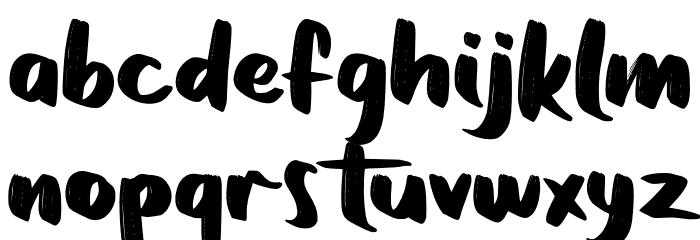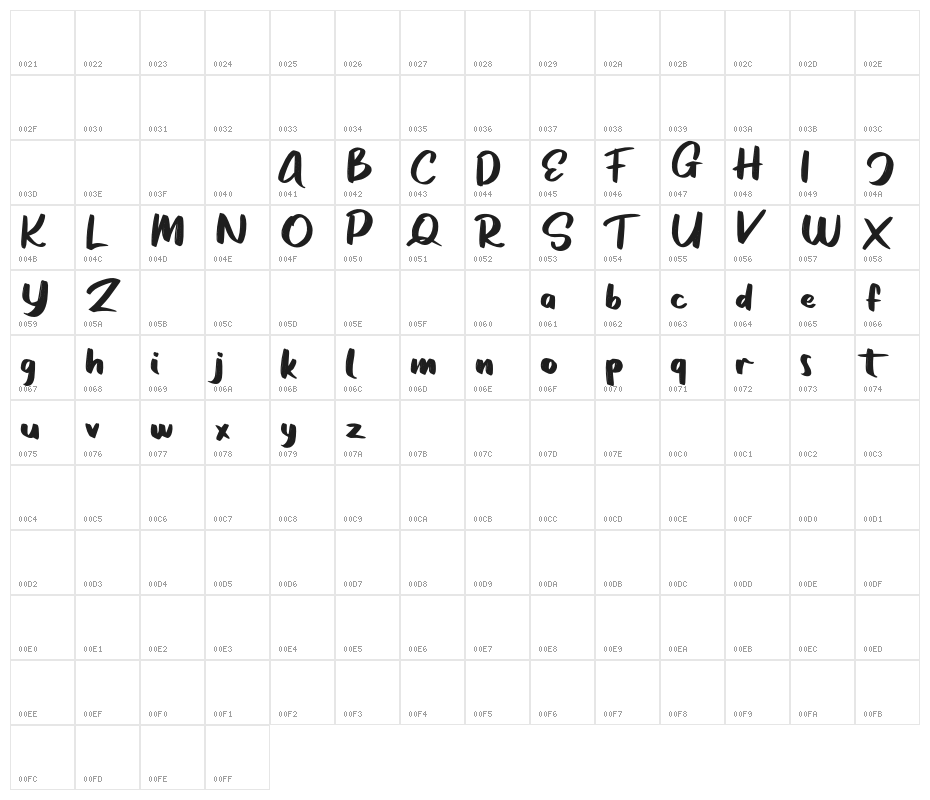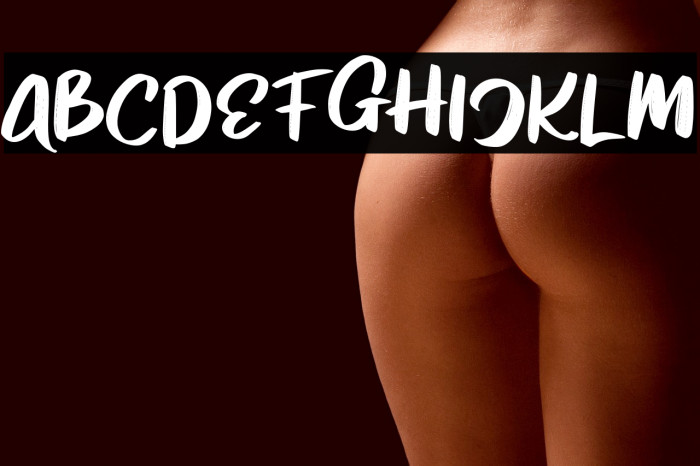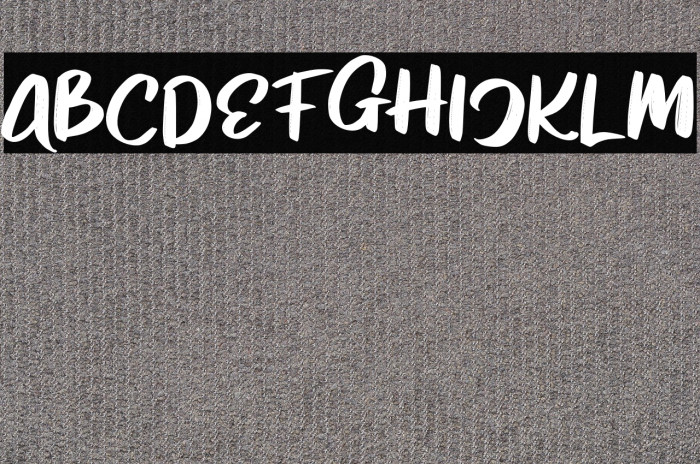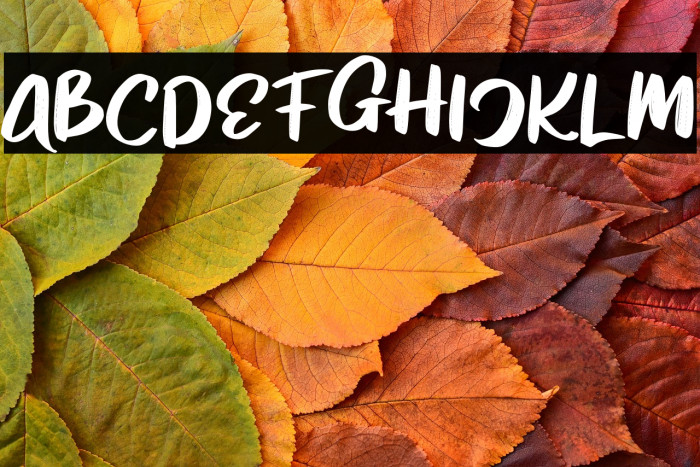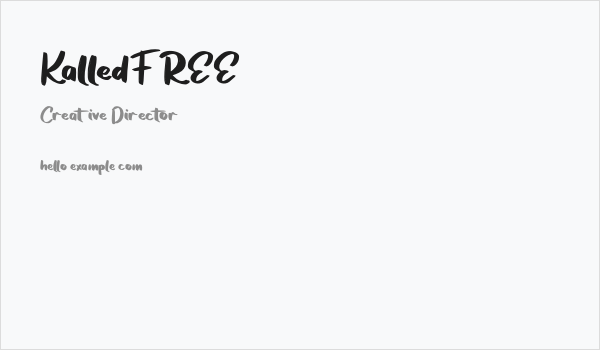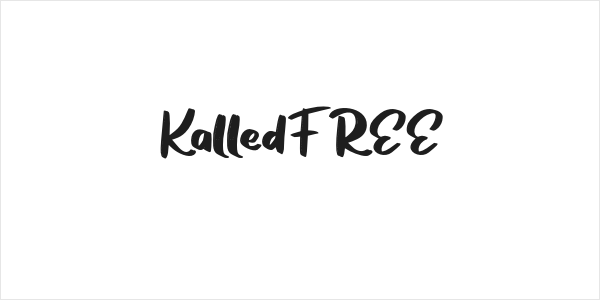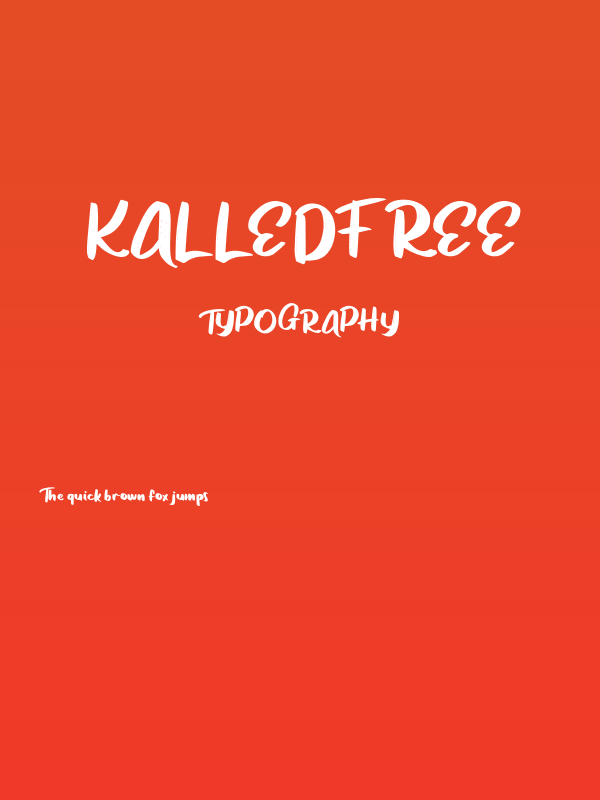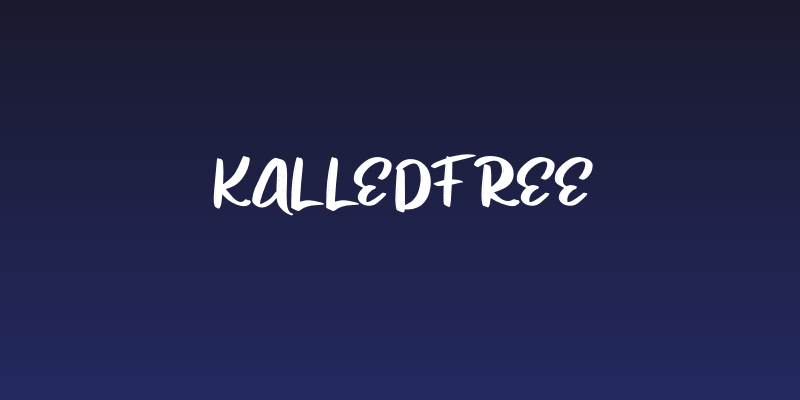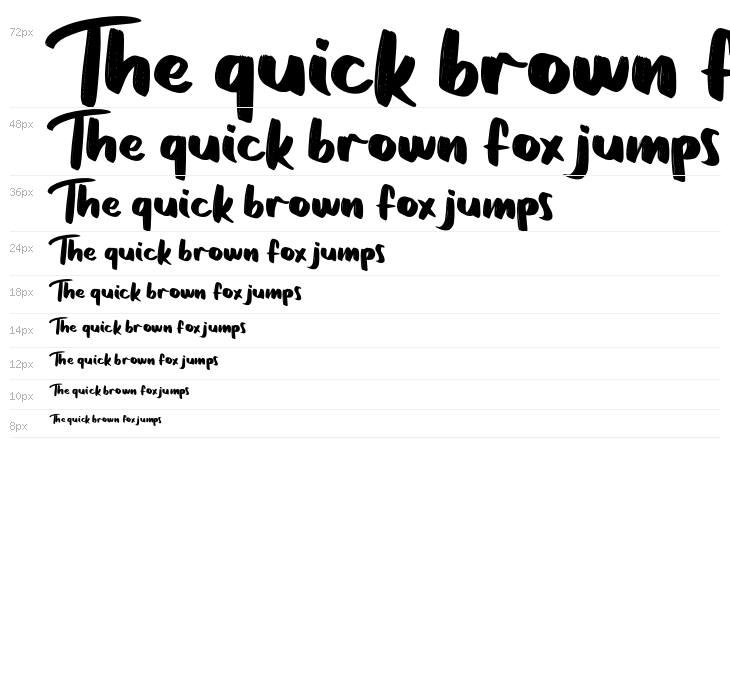
KalledFREE Font
This font features a bold, brush-like style with a dynamic and energetic appearance. The strokes are thick and expressive, giving it a hand-painted feel. The characters are slightly slanted, adding to the casual and informal vibe. The uppercase and lowercase letters maintain a consistent style, with rounded edges and varying stroke widths that create a sense of movement. The font is highly legible and stands out due to its boldness and artistic flair. It is suitable for projects that require a personal touch or a creative, lively aesthetic.
A bold, brush-style font with a dynamic and artistic flair.
- Font: KalledFREE
- Proposed Projects: Ideal for posters, branding, social media graphics, and creative projects that require a bold, artistic touch.